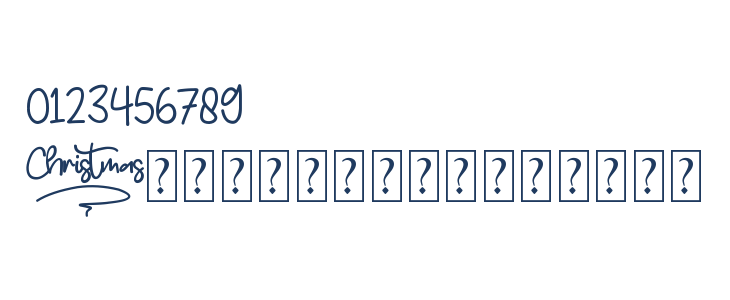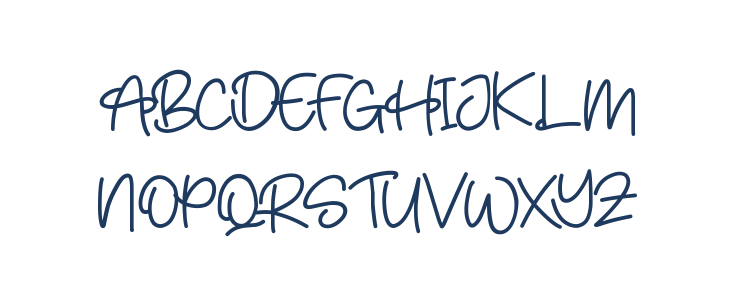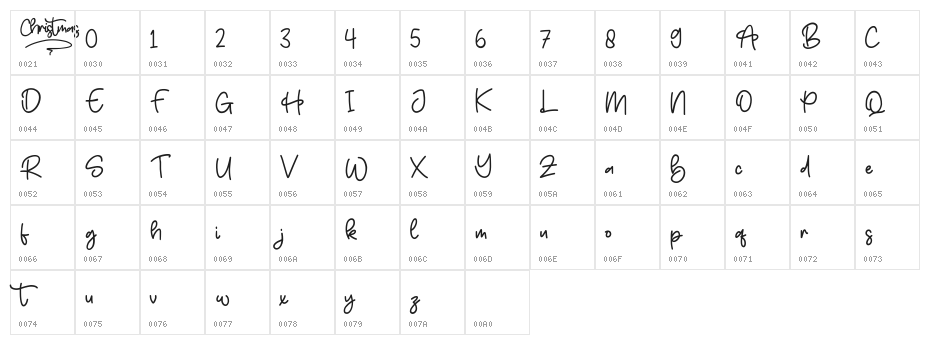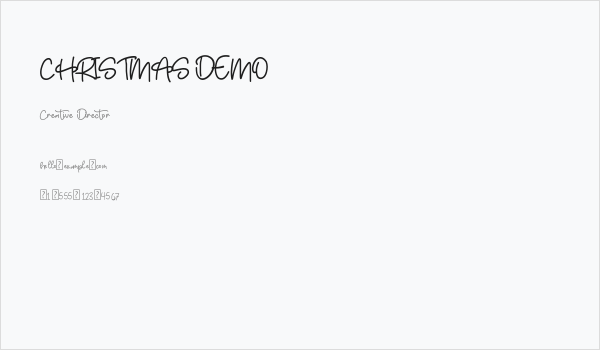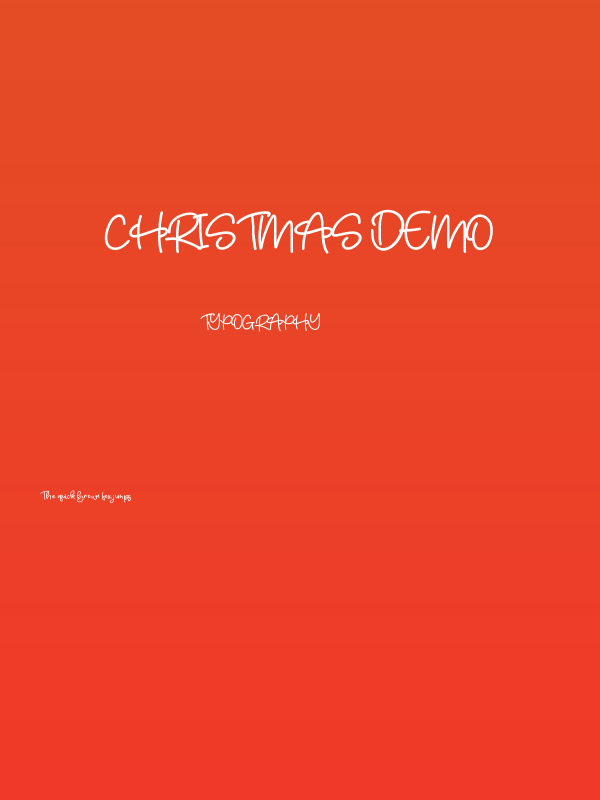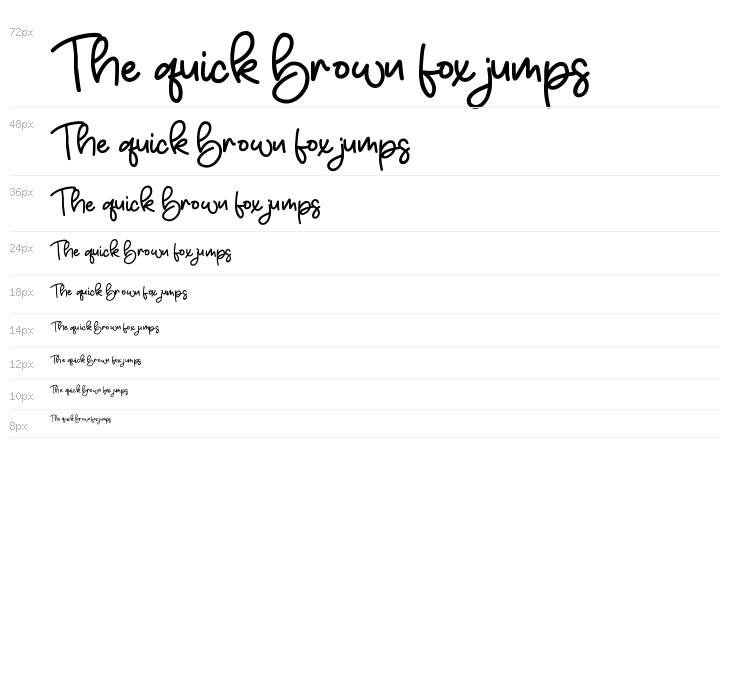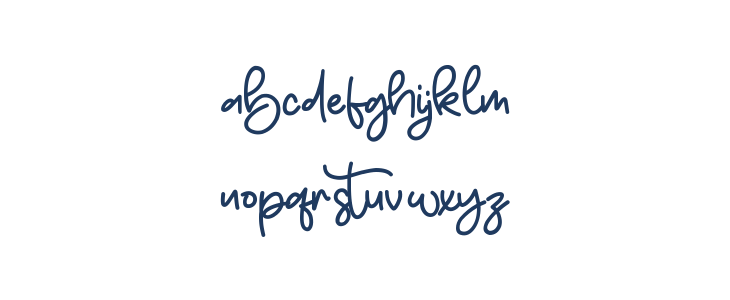
CHRISTMAS DEMO Font
CHRISTMAS DEMO Description
A playful, handwritten script font with smooth, flowing lines and a casual, informal appearance. The characters are slightly irregular, mimicking natural handwriting, with tall ascenders and descenders, and a consistent stroke width.
| Overall Style | Decorative, Playful, Casual |
| Use Case | Logos, Headlines, Greeting cards, Invitations |
| Proposed Projects | Greeting cards, invitations, social media graphics, branding for creative businesses, festive or holiday-themed designs. |